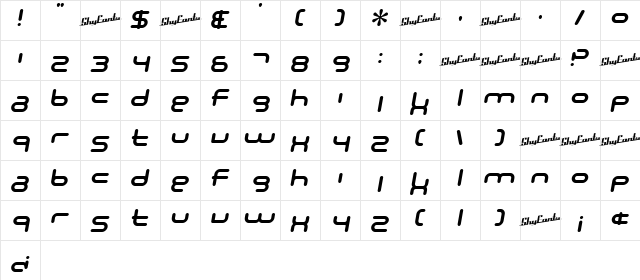
SF Technodelight NS Bold Italic Free Font
SF Technodelight NS Bold Italic
SF Technodelight NS Family
SF Technodelight NS Bold Italic
Design Context for SF Technodelight NS
SF Technodelight NS has a distinctly futuristic character, with geometric precision and clean angles that feel at home in technology, gaming, and sci-fi contexts. The slanted form adds forward momentum and visual energy. Its bold stroke weight gives it real presence on the page.